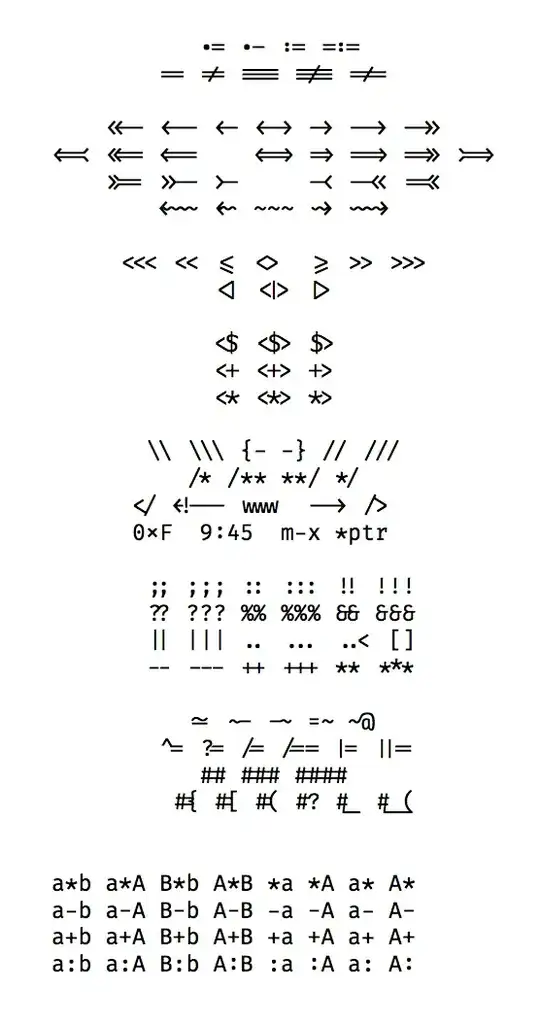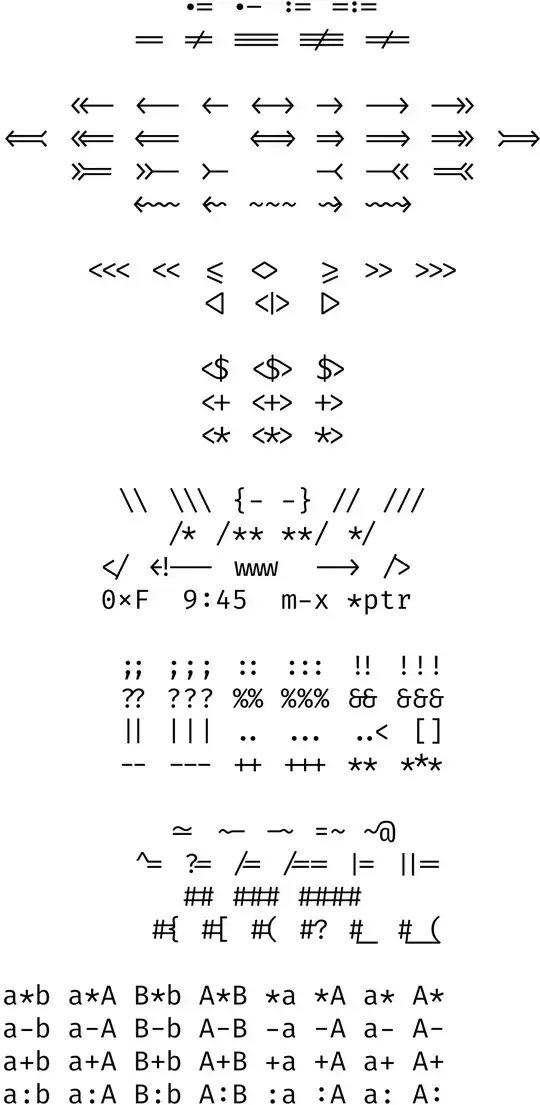
I would like to use the Fira Code OTF font for code listings and verbatim blocks, which has beautiful ligatures. The font loads correctly using the following line:
\setmonofont{FiraCode-Regular}
But I cannot get the ligatures to work, no matter how many combinations of [Ligatures={X}] or [RawFeatures={X}] I try.
Is there any way to make them work with xelatex?
The font features that Fira Code uses aren't actually listed as ligatures within the OTF, but seems to be fall under Contextuals. In order to use these font features, it is just a matter of enabling the appropriate contextuals:
Note that I'm still trying to figure out why certain substitutions work (such as .=) but some others don't (such as .-). I suspect it may be do - being converted from the ASCII dash to some other dash.
Just for reference, the ligatures from Fira Code are:
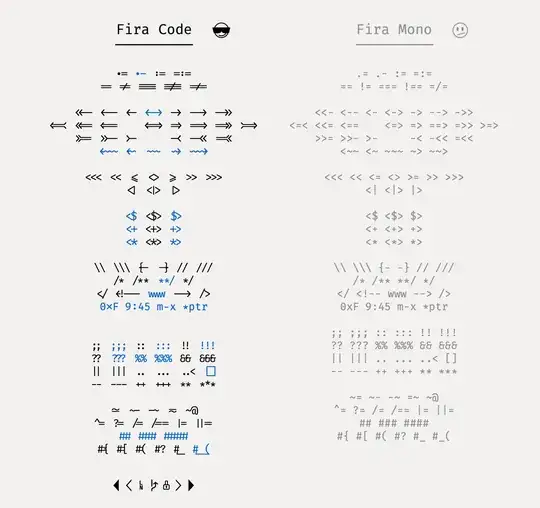
The “missing” ligatures can be obtained by removing the characters verbatim wants to treat in a special way because traditional TeX fonts have ligatures; by default, fontspec doesn't apply Ligatures=TeX to the monospaced font, so there's no risk in redefining \verbatim@noligs@list to empty.
It is also possible to use Fira Code in ConTeXt. However, not all ligatures seem to work there. Unfortunately I have no idea why.